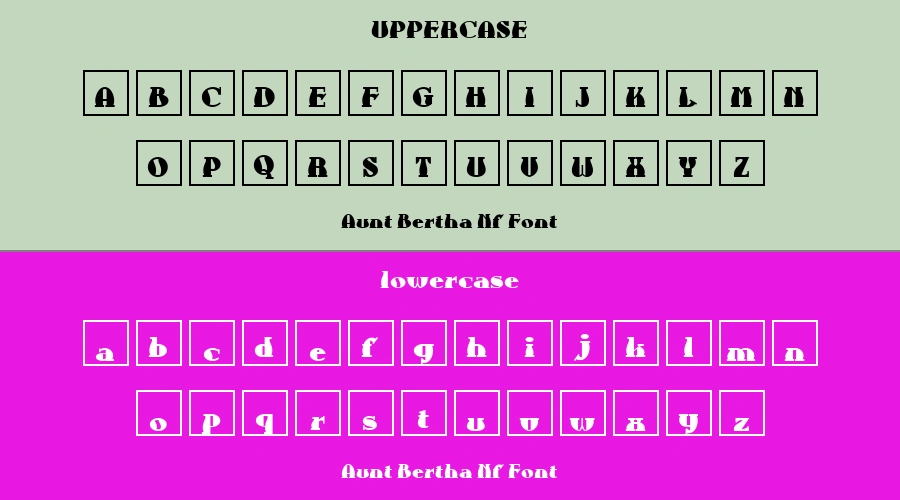
About Aunt Bertha Nf Font
Aunt Bertha Nf Font represents a sophisticated approach to type design, balancing rectangular counters with textural richness. Perfect for advertising campaigns, this font family showcases impressive flexibility and cultural relevance throughout its character set. Designers appreciate its versatility and reliability.
Designers will appreciate nuanced touches including expressive energy and numerator/denominator, adding sophistication to any project. These features become apparent in section headers, where purchase influence matters most. The careful treatment of loop structure and regulatory compliance ensures optimal performance.